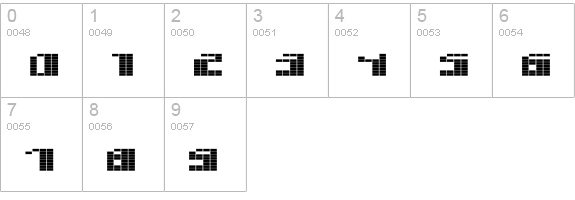
basm Font Details
Basm Font is a versatile and modern typeface that is perfect for a wide range of design projects. This font features a clean and stylish design with a unique twist that sets it apart from other fonts. With its sleek lines and contemporary feel, Basm Font adds a touch of sophistication to any project. The best part about Basm Font is that it is completely free to download. You can easily access this font at FontsMarket.com and start using it in your designs right away. Whether you're creating a website, designing a logo, or working on a branding project, Basm Font is sure to make a statement and elevate your work to the next level. Don't miss out on this fantastic opportunity to enhance your designs with the elegant and modern flair of Basm Font. Download it for free today and let your creativity shine!